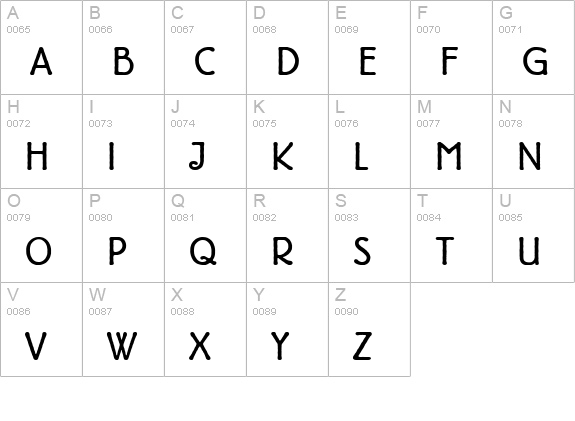
Berliner Grotesk Light Font Details
Berliner Grotesk Light is a refined, elegant variant in the Berliner typeface family \xE2\x80\x94 well suited to elegant body text, refined sub-headings, and luxury branding.
Berliner Grotesk Light is a modern and sleek sans-serif typeface that exudes elegance and sophistication. With its clean lines and minimalistic design, this font is perfect for conveying a sense of style and professionalism in your projects. The light weight of the font adds a touch of delicacy and refinement to your text, making it ideal for use in headlines, titles, and other display purposes. What makes Berliner Grotesk Light even more appealing is that it is completely free to download at FontsMarket.com. This means that you can easily access this high-quality font without having to spend a dime. Whether you're working on a personal project or a commercial design, Berliner Grotesk Light offers you the versatility and aesthetic appeal you need to make your text stand out. Overall, Berliner Grotesk Light is a fantastic choice for designers looking for a modern and sophisticated font that is both visually striking and easy to read. Download it for free today and add a touch of elegance to your next creative endeavor.